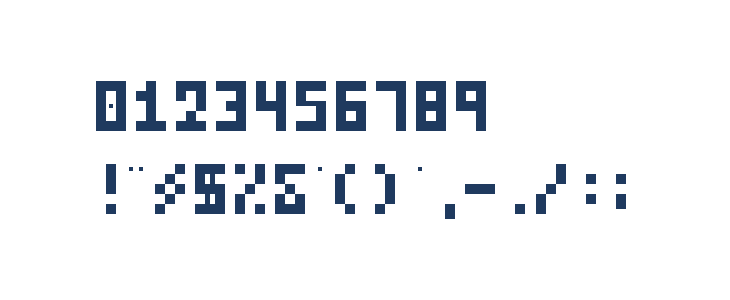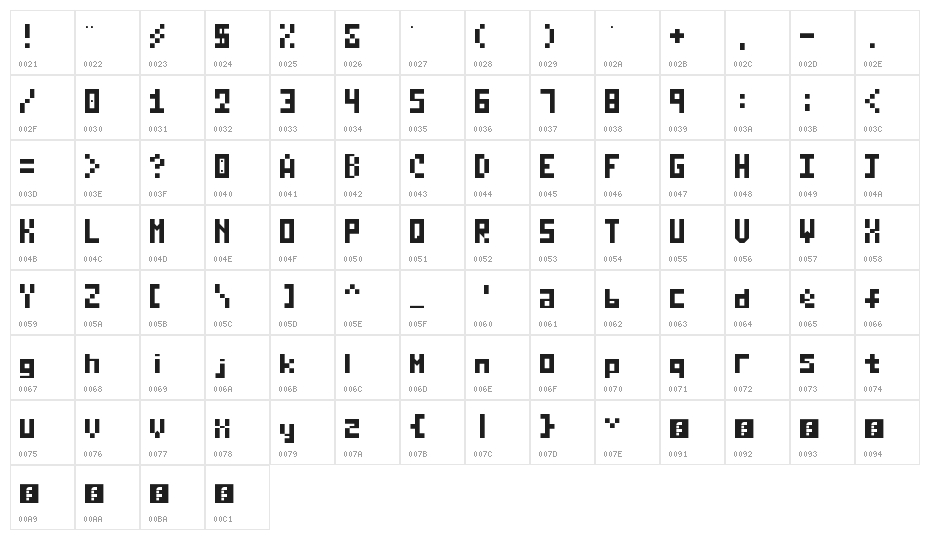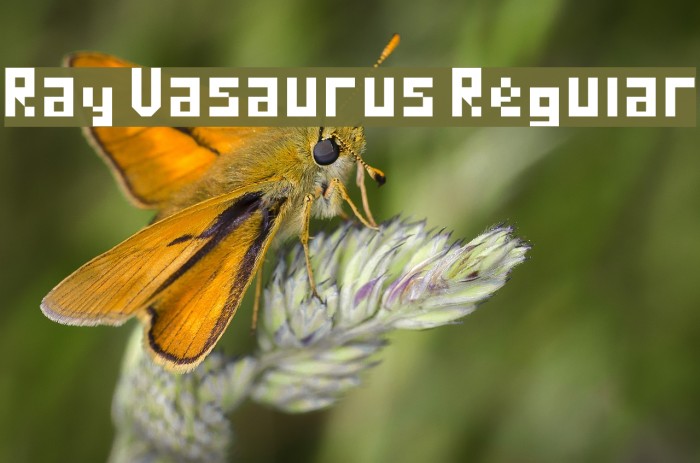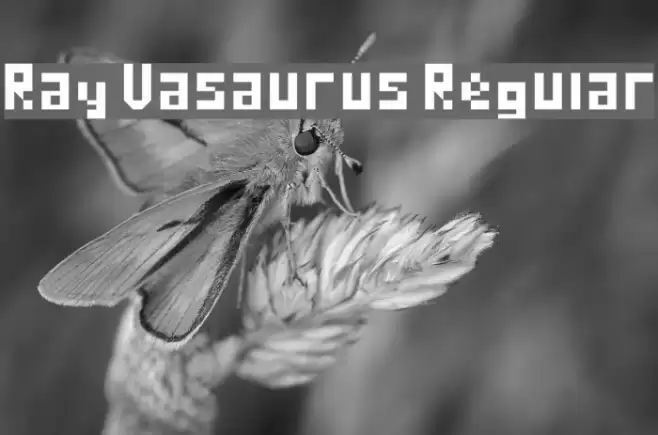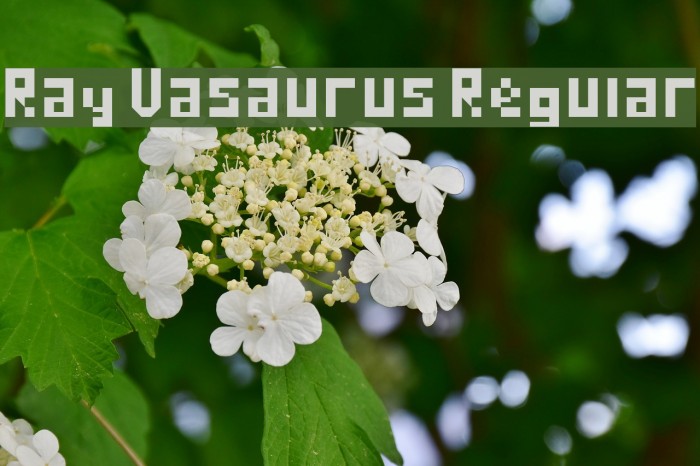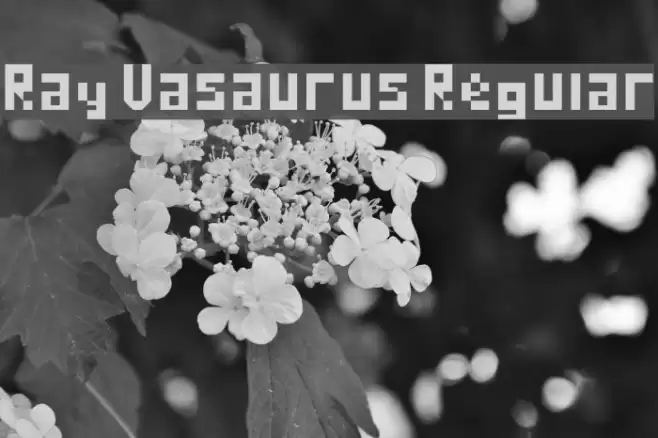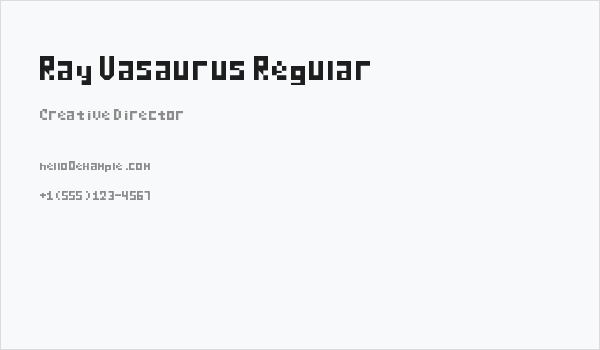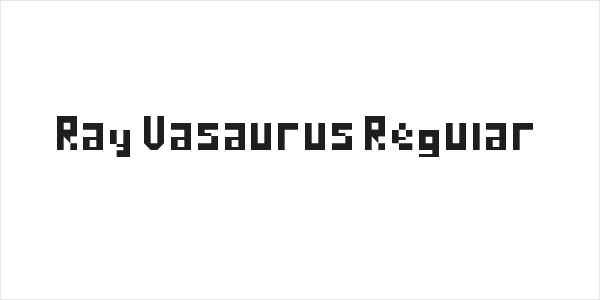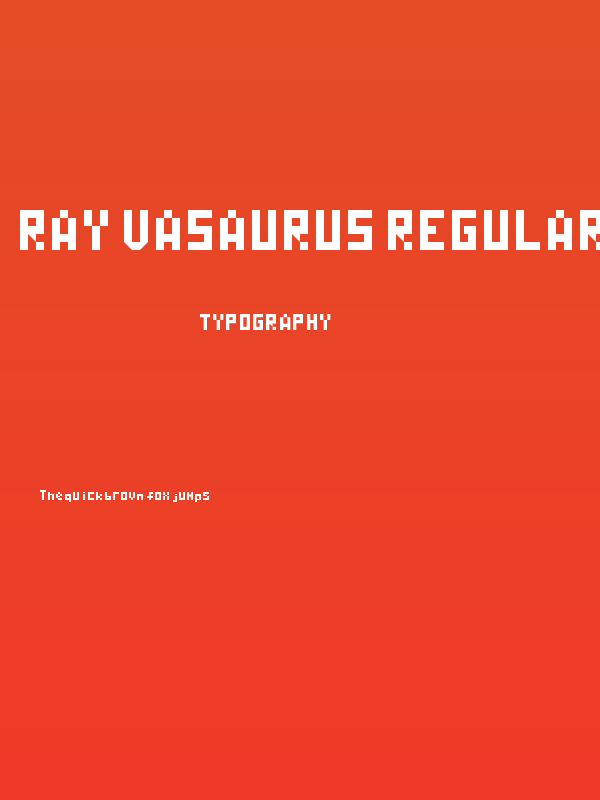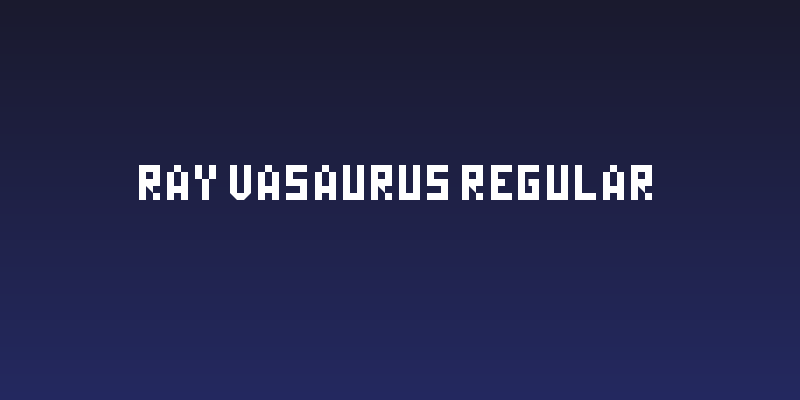
Ray Vasaurus Regular Font
Ray Vasaurus Regular Description
This font features a bold, geometric design with a pixelated aesthetic reminiscent of early digital displays. Each character is constructed with sharp, angular lines and consistent stroke widths, giving it a blocky and robust appearance. The uppercase and lowercase letters maintain a uniform height, enhancing the font's monospaced feel. The numerals and special characters follow the same design principles, ensuring visual consistency across all glyphs. This font's distinct style makes it ideal for projects that require a retro or tech-inspired look.